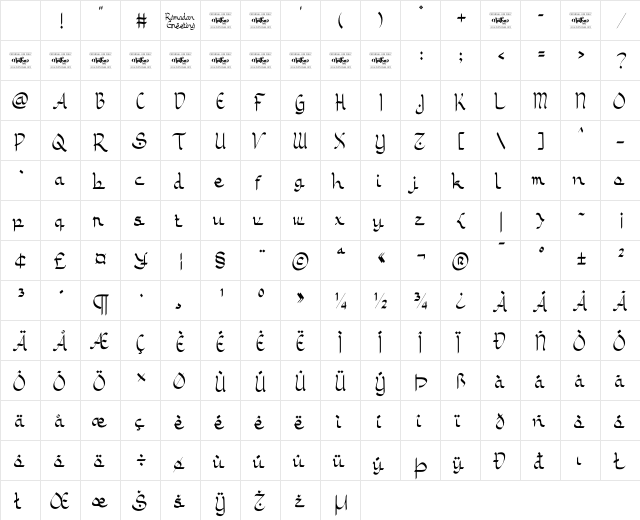
Complete Ramadan Greeting Personal Use Regular glyph index. Displaying only characters natively supported by Ramadan Greeting Personal Use Regular font.
Ramadan Greeting Personal Use is a composed and adaptable typeface that performs quietly and consistently across a wide range of design contexts.